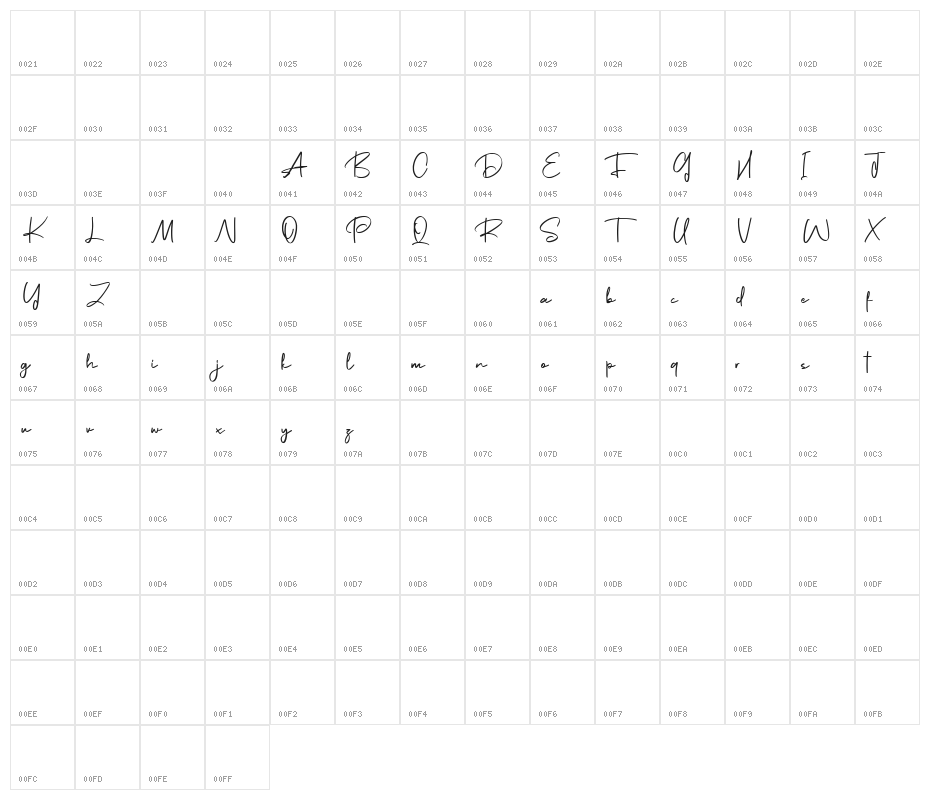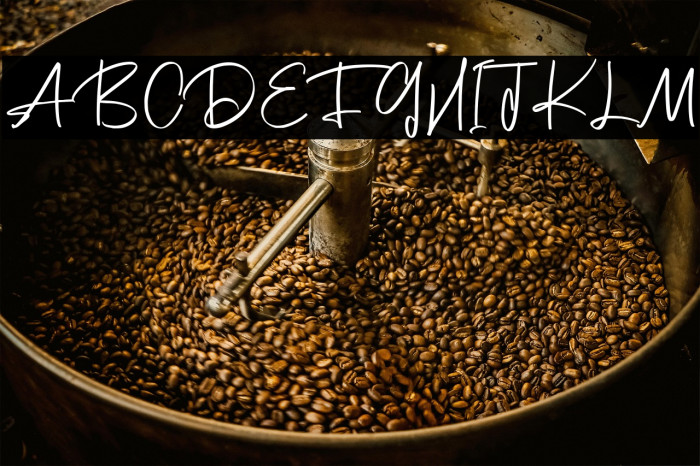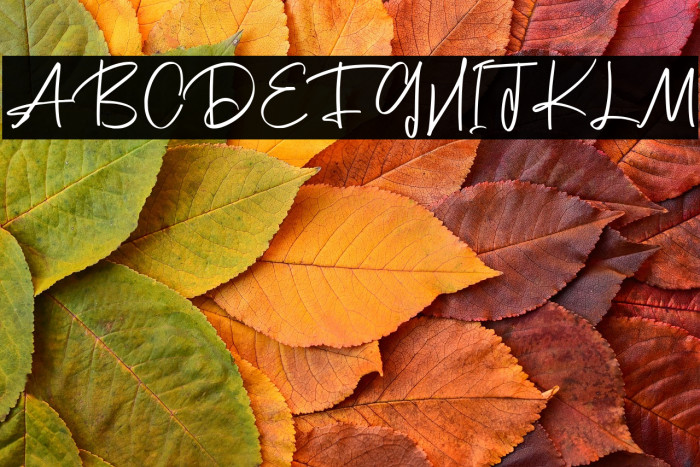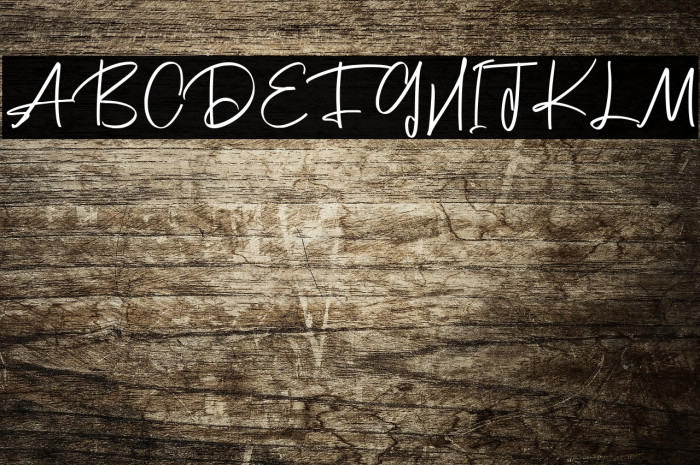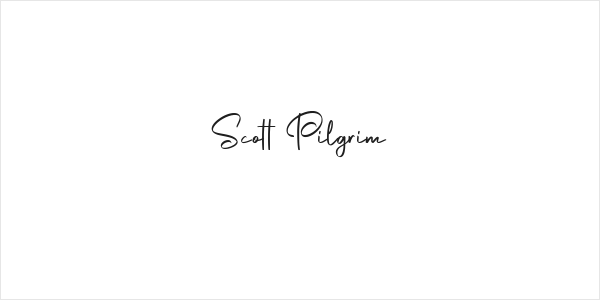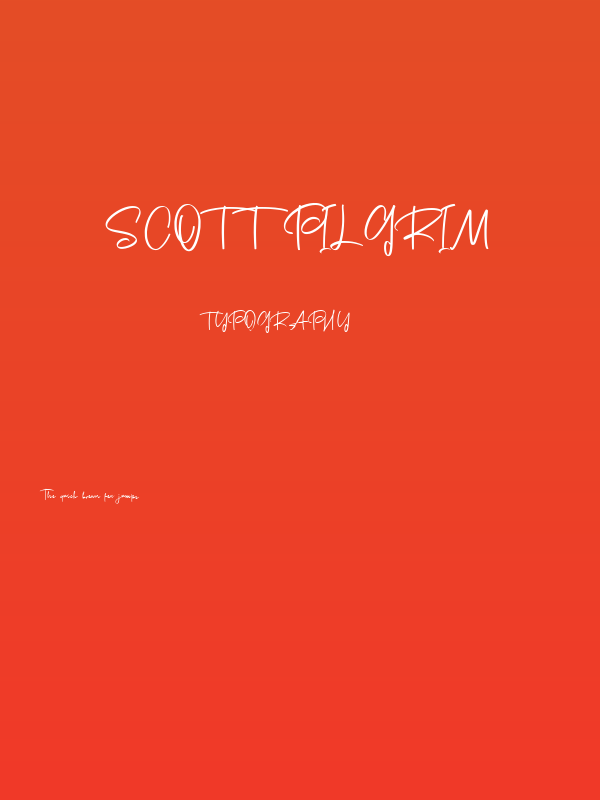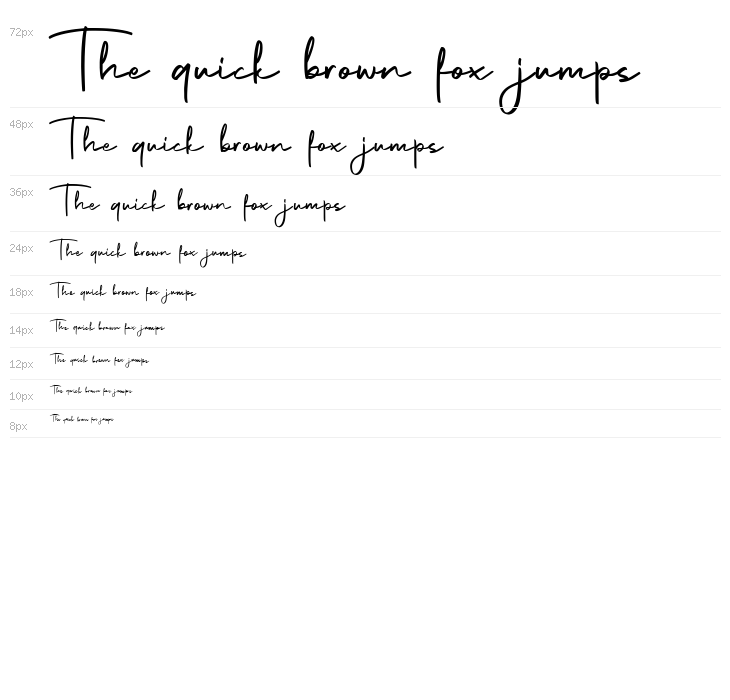
Scott Pilgrim Font
Scott Pilgrim Description
This font features a playful and dynamic handwritten style, characterized by its fluid and expressive strokes. The uppercase letters exhibit a bold and energetic flair, with varying line thickness that adds a sense of movement and personality. The lowercase letters maintain a cohesive flow, with smooth curves and a slightly informal touch that enhances its casual appeal. This font's unique character is further emphasized by its moderate contrast in stroke thickness, creating a lively and engaging visual experience. The spacing between characters is relatively tight, contributing to its compact and energetic appearance.
Overall StyleCasual
Use CaseLogos, Headlines, Social media graphics
Proposed ProjectsIdeal for creative projects such as greeting cards, invitations, personal branding, and social media graphics.